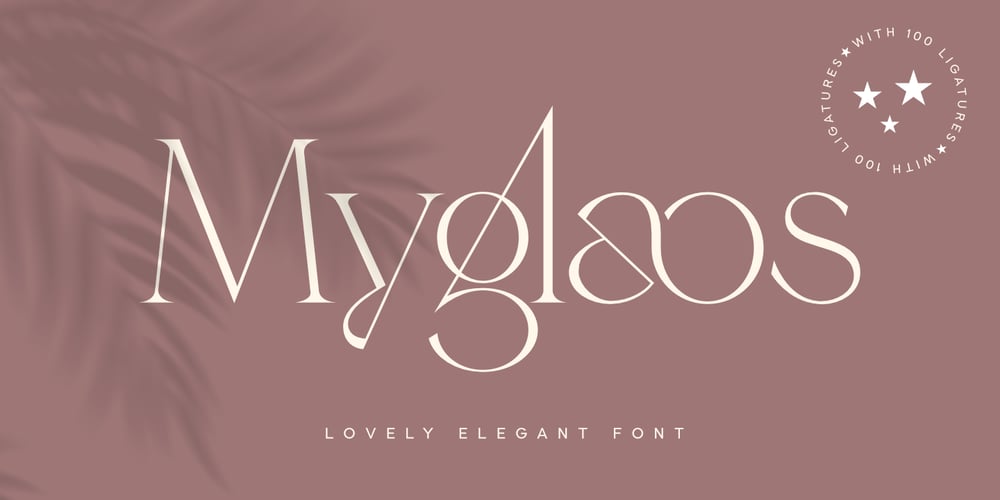
Myglaos Font Family was designed by Saiful Anwar and published by Sealoung. Myglaos contains 1 styles and family package options. Myglaos is a lovely elegant font for branding and logo design.This typeface includes a massive selection of ligatures, making it perfect for a variety of creative projects such as branding, logo design, content creation, packaging designs, stationery & so much more.